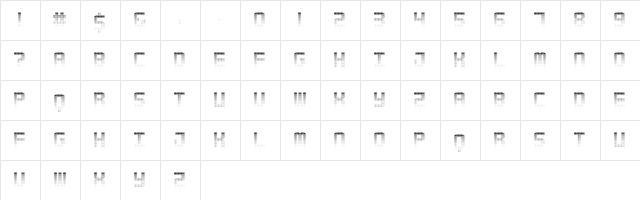
Starlight Regular
| Designer | GeronimoFonts |
Design Context for Starlight Typeface
Starlight is a composed and adaptable typeface that performs quietly and consistently across a wide range of design contexts. Its slender proportions lend an understated elegance to any composition.
Pro Tip: Pair Starlight with a font of contrasting weight or personality to build a more expressive typographic hierarchy.